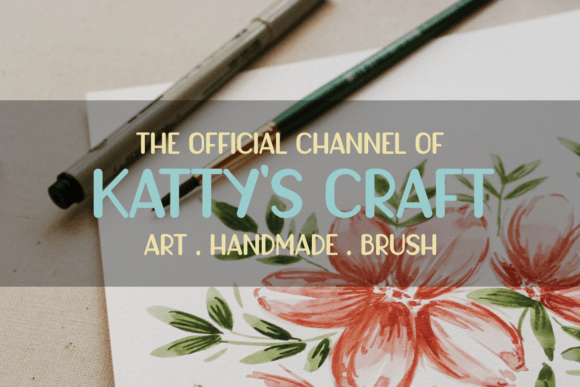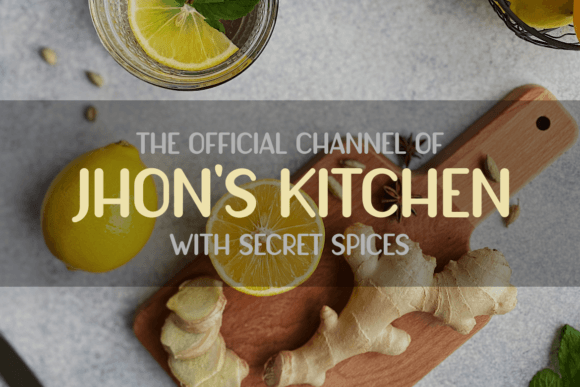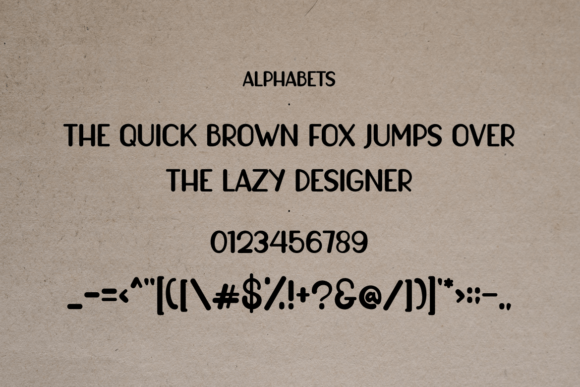
Djavarema Font: Elevate Your Designs with a Cool and Casual Sans Serif Display Font
Are you tired of using the same old fonts in your designs? Look no further than Djavarema, a cool and casual sans serif display font that’s sure to take your creative projects to the next level. In this article, we’ll dive into the world of Djavarema, exploring its features, benefits, and uses, and providing you with tips and inspiration on how to incorporate it into your designs.
What is Djavarema Font?
Djavarema is a modern sans serif display font that’s perfect for designers and crafters looking to add a touch of coolness and casualness to their work. With its clean lines, simple shapes, and friendly vibe, Djavarema is ideal for a wide range of projects, from branding and advertising to packaging and digital media.
Key Features of Djavarema Font
- Cool and Casual Aesthetic: Djavarema’s unique design gives it a laid-back, effortless feel that’s perfect for creating eye-catching headlines and titles.
- Sans Serif Design: The font’s sans serif design makes it easy to read and versatile, suitable for both digital and print applications.
- Display Font: Djavarema is specifically designed as a display font, making it perfect for use in titles, headings, and other prominent text elements.
- Easy to Read: Despite its casual aesthetic, Djavarema is surprisingly easy to read, even at smaller sizes.
Benefits of Using Djavarema Font
So why choose Djavarema for your designs? Here are just a few benefits of using this amazing font:
- Adds a Touch of Personality: Djavarema’s unique design allows you to add a touch of personality to your designs, setting them apart from the crowd.
- Versatile: The font’s sans serif design and clean lines make it suitable for a wide range of projects and applications.
- Easy to Pair: Djavarema pairs well with a variety of other fonts, making it easy to create harmonious and visually appealing typography.
Using Djavarema Font in Your Designs
So how can you use Djavarema in your designs? Here are a few ideas to get you started:
- Headlines and Titles: Use Djavarema to create eye-catching headlines and titles that grab attention and draw the reader in.
- Branding and Logo Design: Djavarema’s unique design makes it perfect for use in branding and logo design, helping to create a memorable and recognizable identity for your business or organization.
- Packaging Design: Add a touch of coolness and casualness to your packaging designs with Djavarema, making your products stand out on store shelves.
- Digital Media: Djavarema is perfect for use in digital media, including social media graphics, website headers, and more.
Tips for Getting the Most Out of Djavarema Font
Here are a few tips for getting the most out of Djavarema:
- Experiment with Different Sizes: Djavarema looks great at a variety of sizes, so don’t be afraid to experiment and find the perfect size for your design.
- Pair with Other Fonts: Djavarema pairs well with a variety of other fonts, so try pairing it with some of your favorite fonts to create interesting and harmonious typography.
- Use it Sparingly: As a display font, Djavarema is best used sparingly to create emphasis and draw attention to specific text elements.
Djavarema is a cool and casual sans serif display font that’s perfect for designers and crafters looking to add a touch of personality to their work. With its unique design, versatility, and ease of use, Djavarema is sure to become a go-to font in your design arsenal. So why wait? Add Djavarema to your creative ideas and enjoy the results!